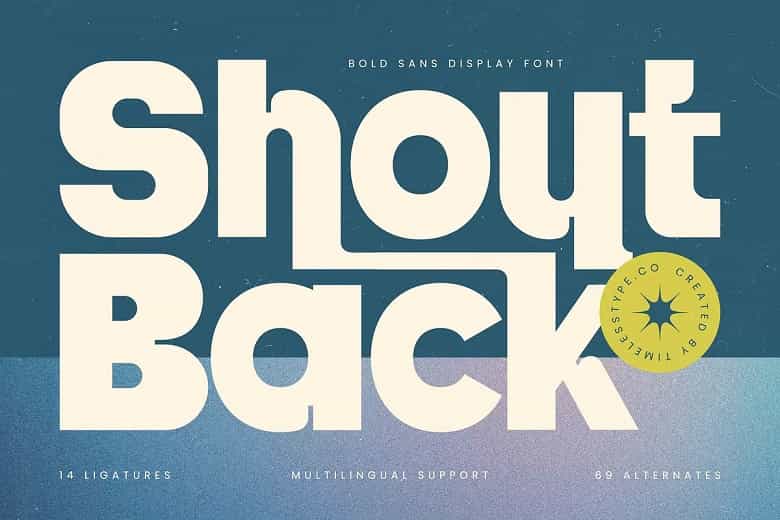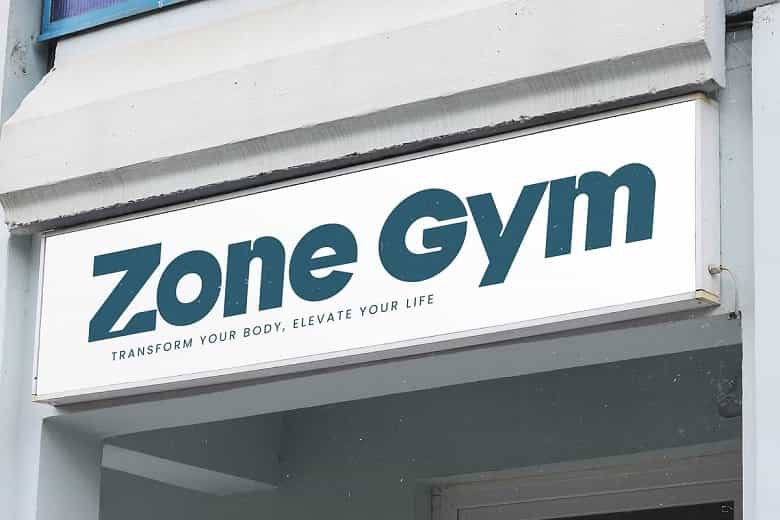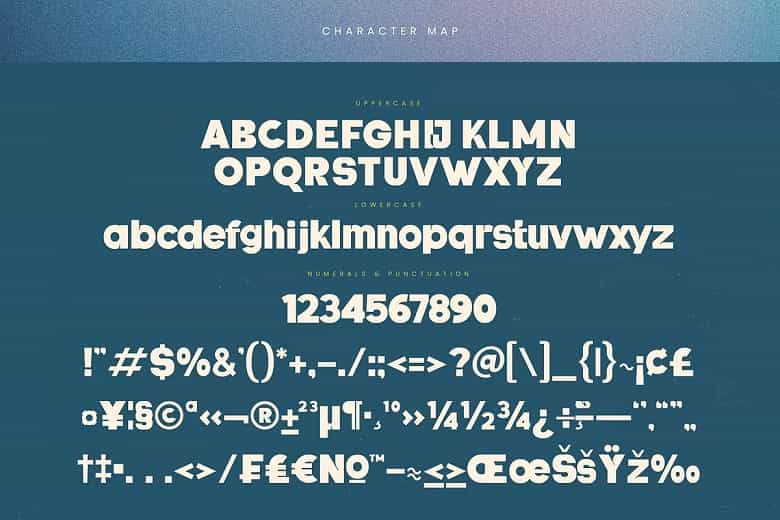
Shout Back is a bold sans display font designed by Timelesstype. Co, It is suitable for any projects such as: logos, branding projects, homeware designs, product packaging, mugs, quotes, posters, shopping bags, t-shirts, book covers, name card, invitation cards, greeting cards, special events, and all your other luxury and beautiful projects.